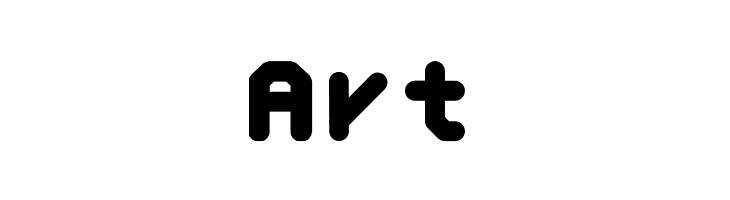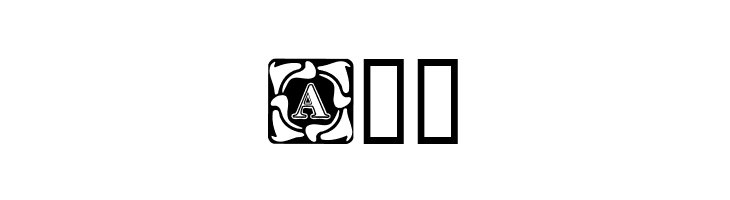
A futuristic, expanded italic font with bold, angular shapes and unique cutouts.
A bold, futuristic stencil-style font with angular, forward-leaning characters.
A modern, geometric outline font with a futuristic and airy design.
A bold, futuristic font with geometric and technical design elements.
A bold, geometric font with Art Deco influences and sharp serifs.
A futuristic, geometric font with clean lines and sharp angles.
A bold, retro-inspired font with playful geometric shapes and curves.
A modern outline font with bold, geometric shapes and clean lines.
A bold, thorny font with sharp, jagged edges for a striking and aggressive look.
A futuristic, angular font with bold, slanted characters and geometric shapes.
A bold, expanded font with a futuristic, geometric design.
A bold, geometric font with strong, block-like characters for impactful designs.
A bold, futuristic font with geometric shapes and sharp angles.
A bold, three-dimensional font with a strong shadow effect and geometric forms.
A bold, 3D geometric font with a shadow effect for striking visual impact.
A bold, gothic Blackletter font with intricate detailing and a medieval aesthetic.
A pixelated, monospaced font with a bold, digital aesthetic.
A bold, geometric font with Art Deco influences, ideal for modern and stylish designs.
A futuristic, geometric font with clean lines and rounded corners.
A bold, angular font with a rugged, rune-like appearance.
A playful, hand-drawn font with irregular, wavy strokes and a whimsical style.
A bold, playful font with a mix of solid and outlined elements, perfect for eye-catching designs.
A rugged, distressed font with a hand-drawn, edgy style.
A modern, geometric font with tall, narrow characters and consistent stroke width.
Bold, boxed uppercase font with a vintage-modern style.
A modern, bold, and geometric font with a condensed style.